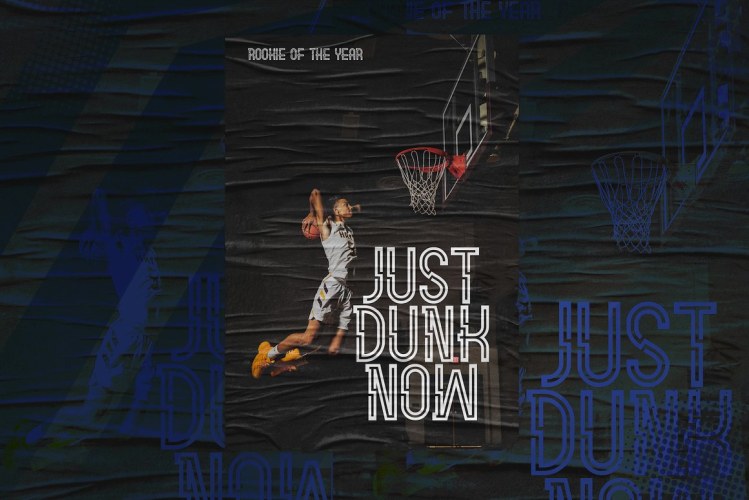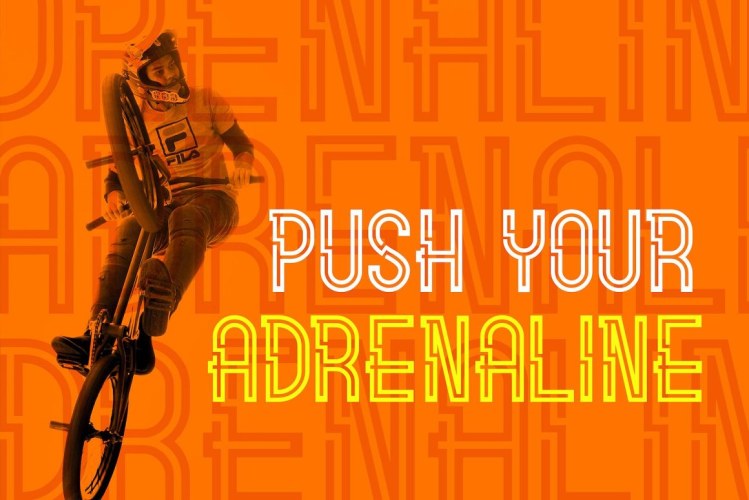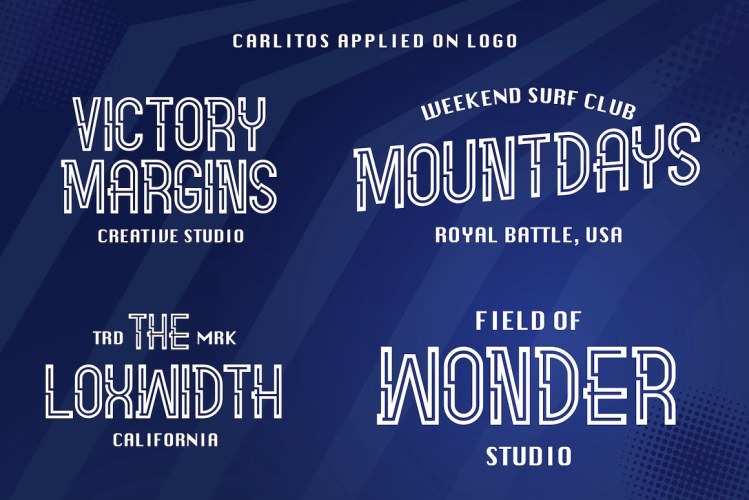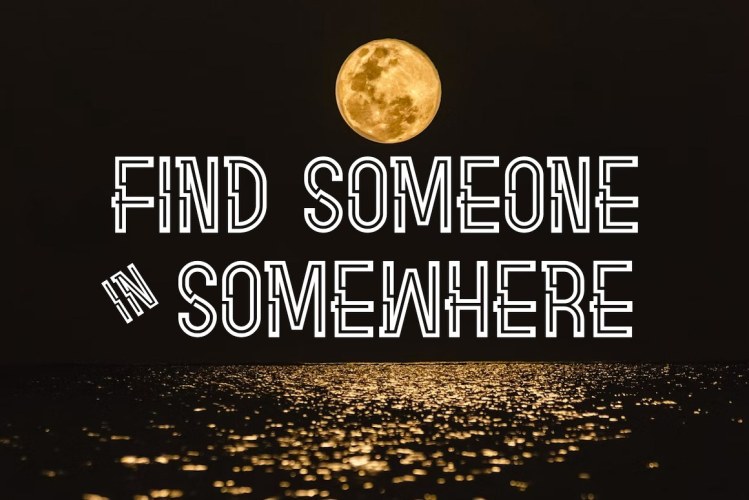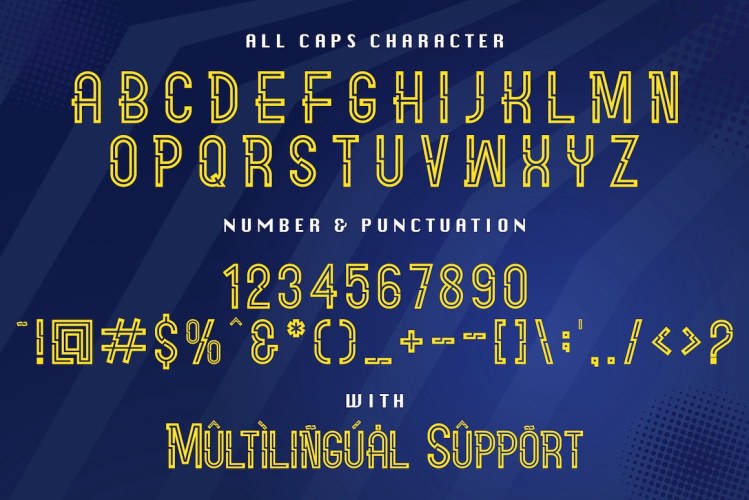
Carlitos – Decorative Sporty Font
Introducing Carlitos – Decorative Sporty Font
Carlitos is a sporty and modern display font. This playfully conceptual typeface font will look truly outstanding in a wide range of contexts. This font is very suitable for your any sports needs, such as: Football Jersey, Basketball Jersey, Soccer Jersey, and Other Sports purpose.
Where Carlitos – Decorative Sporty Font works best
Event & seasonal design
Carlitos – Decorative Sporty Font suits themed posters, holiday campaigns, festival identities and party invitations.
Game & entertainment titles
Decorative letterforms are a natural fit for game logos, movie-style titles and merch.
Packaging accents
Use Carlitos – Decorative Sporty Font sparingly for product names or flavour labels that need personality.
What is Carlitos – Decorative Sporty Font good for?
Carlitos – Decorative Sporty Font is a Decorative Fonts typeface tagged Carlitos Decorative Sporty Font, Decorative, Decorative Fonts, Display. It works well for headlines, logos, posters, social media graphics and branding projects that need a distinctive decorative fonts look.